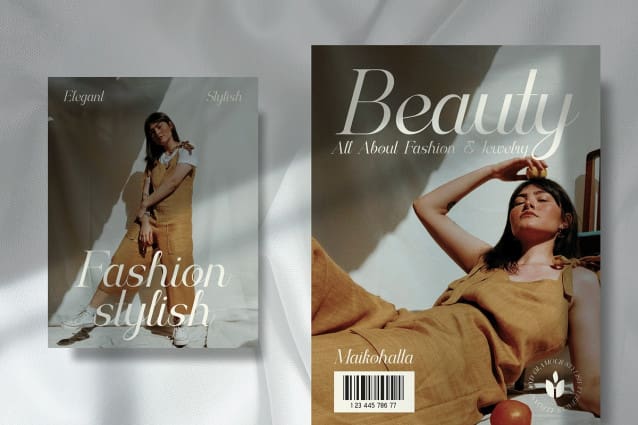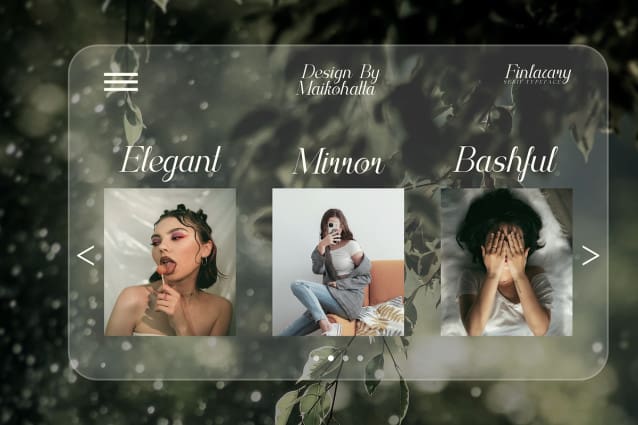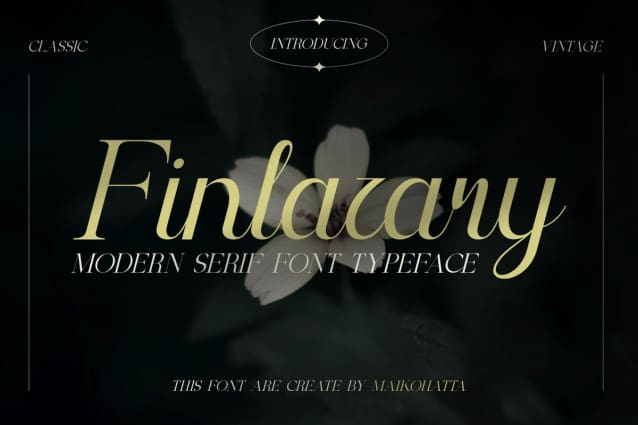
Finlazary Font
Finlazary Font – Modern Serif Typeface. This font features a balanced proportion of stroke thickness and fineness, creating attractive and easy-to-read visuals. This modern serif style is often characterized by a bold distinction between thick and thin lines, providing a touch that is understated but still stands out.